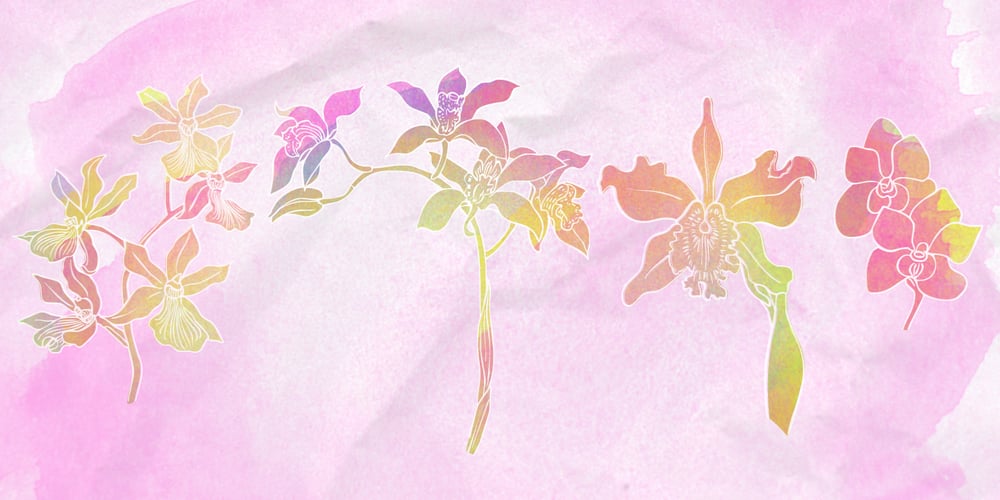
Orchids
Orchids font
Orchids Font Family was designed by Natsuko Hayashida and published by Okaycat. Orchids contains 1 styles and family package options. Hand drawn orchid Illustrations, these flowers make very pretty designs.